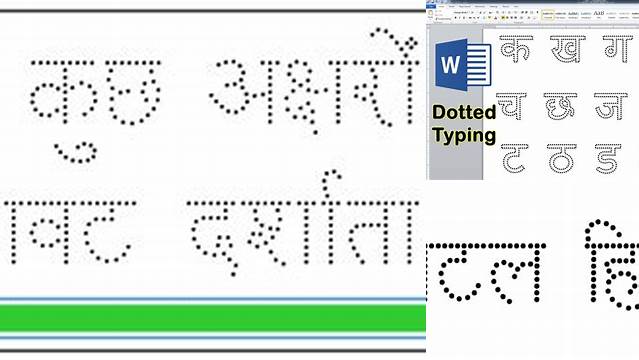
What Exactly Are Hindi Dotted Fonts and Why Use Them?
So, guys, you're looking for a way to help yourself or someone else learn to write Hindi, right? Well, let me tell you, Hindi dotted fonts are an absolute game-changer! Basically, these are special fonts designed with letters that are made up of dots. Think of it like a connect-the-dots puzzle, but for learning the beautiful Hindi script. Instead of a solid line, you get a series of tiny dots that form the shape of each Hindi character. This makes it super easy to follow the stroke order and the correct way to form each letter. When you download and print these fonts, you get practice sheets that are perfect for tracing. It's a fantastic visual aid, especially for beginners who are new to the complex shapes of Hindi. Whether you're a student, a teacher, a parent, or just someone fascinated by the Hindi language, these fonts offer a fun and effective way to get hands-on with writing. We're talking about making the learning process less intimidating and way more engaging. So, if you've been wondering what all the fuss is about, it's all about making learning to write Hindi accessible and enjoyable. You can find these readily available for free download, which is awesome because it means everyone can access this learning tool without any financial barriers. It’s all about making learning fun and effective!
The Magic of Tracing: Building Muscle Memory for Hindi
Alright, let's dive deeper into why tracing with these Hindi dotted fonts is so darn effective, guys. It's not just about looking at the letters; it's about physically engaging with them. When you trace over those dots, your brain and your hand work together in a really cool way. This process helps build what we call muscle memory. Imagine learning to ride a bike – at first, it’s wobbly, but the more you do it, the more your body remembers the movements without you even having to think about it. Tracing Hindi dotted fonts does the same thing for your writing. Your fingers learn the precise movements, the curves, and the straight lines needed to form each character correctly. This repetition is key to mastering any new skill, and writing is no different. It bypasses the initial struggle of figuring out where to start and which direction to go. The dots provide that guided path, ensuring you’re learning the correct stroke order, which is super important in many scripts, including Hindi. This method transforms a potentially frustrating task into a more intuitive and rewarding experience. You start to feel a sense of accomplishment with each letter you successfully trace. Plus, it's way less stressful than trying to write from scratch and getting it all wrong. So, grab a pen or a pencil, and get ready to trace your way to Hindi writing fluency!
Why Hindi Dotted Fonts are a Lifesaver for Beginners
For anyone just starting their Hindi learning journey, these free Hindi dotted fonts are nothing short of a lifesaver, seriously. The Hindi alphabet, with its Devanagari script, can look pretty intimidating at first glance. It’s got unique shapes and a different way of writing compared to many Western languages. Trying to copy these complex characters from a book or a screen without guidance can lead to a lot of frustration and incorrect letter formation. That's where dotted fonts come in. They provide a clear, step-by-step guide for every single letter. You don't have to guess the strokes; they're laid out for you in a way that's easy to follow. This takes a huge amount of pressure off beginners. Instead of worrying about making mistakes, they can focus on the process of moving their hand and forming the shapes. It builds confidence early on, which is crucial for motivation. When you can see progress and successfully write letters, you're more likely to stick with it. Think of it as having a personal handwriting tutor built right into your practice sheets. You're not just learning to recognize the letters; you're learning to write them properly from the get-go. This solid foundation in correct letter formation will serve you well as you progress to more advanced Hindi learning. It's the perfect starting point for anyone wanting to conquer the Hindi script without feeling overwhelmed.
Exploring Different Types of Hindi Dotted Fonts Available for Download
When you start searching for free Hindi dotted font downloads, you'll quickly realize there isn't just one 'type' of dotted font out there, guys. The variety is pretty cool and caters to different learning needs and preferences. Some fonts are designed with very clear, large dots that are easy for little fingers or those with less fine motor control to trace. These are often found in materials aimed at very young children. Then you have fonts with dots that are more closely spaced, mimicking a more solid line but still offering that tracing guidance. These are great for older learners or those who want to progress from tracing to writing. Some fonts even come with subtle directional arrows integrated into the dot patterns, showing you exactly which way to move your pen for each stroke. How cool is that? You might also find fonts that focus on specific aspects, like just the consonants or just the vowels, allowing for targeted practice. And let's not forget about the different styles – some fonts might be more traditional and formal, while others could be more playful and modern. The key is that they are all designed with the goal of making tracing easier and more effective. The availability of diverse options means you can find the perfect fit for your specific learning situation, whether you're teaching kindergarteners or brushing up on your own Hindi writing skills. So, take a moment to explore and see which style best suits your needs. You're bound to find something great!
Setting Up Your Practice Sheets: Tips for Printing and Usage
Okay, so you've successfully downloaded your awesome free Hindi dotted font, now it's time to make some killer practice sheets, guys! The way you set these up can make a huge difference in how effective they are. First off, when you create your document (using Word, Google Docs, etc.), make sure you select the dotted Hindi font you just installed. Type out the letters, words, or even short sentences you want to practice. Now, for printing: think about the size. For younger learners, larger letters with more space between them are usually best. This helps with developing fine motor control. Use a good quality paper – something a bit thicker than regular printer paper can hold up better to repeated tracing. You might even consider laminating the pages once printed. This way, you can use them over and over again with a dry-erase marker, which is super economical and eco-friendly! Another tip is to include a small, solid version of the letter next to the dotted one. This gives the learner a clear visual of the final, correctly formed character. You can also add lines for writing practice right next to the traced letter. And don't forget to mix it up! Include vowels, consonants, common word combinations, and even simple phrases. The more variety, the more engaging it will be. Basically, tailor the difficulty and content to the learner's current level. Think about making it fun, not just functional. These little tweaks can turn a simple printout into a powerful learning tool.
Tracing Hindi Alphabet (Varnamala) with Dotted Fonts
One of the most fundamental things you'll want to trace is the Hindi alphabet, or the Varnamala, guys. This is your absolute starting point for mastering the script. Using free Hindi dotted fonts to create Varnamala tracing sheets is incredibly effective. You can break it down into sections: first, the vowels (swar), then the consonants (vyanjan). For each letter, print it large enough to trace comfortably. When you're creating these sheets, consider adding a number for each stroke, guiding the learner through the sequence. For example, the first stroke gets a '1', the second a '2', and so on. This is especially helpful for the more complex consonants. You can also add a blank space next to each dotted letter for the learner to try writing it independently after tracing. The repetition of tracing each vowel and consonant multiple times helps solidify their shapes in memory. It’s like drilling, but in a much more enjoyable way. You can also create combined sheets featuring multiple letters, or focus on specific groups of consonants that share similar stroke patterns. The goal is to provide a structured yet forgiving environment for learners to get acquainted with every single character of the Hindi alphabet. Making these Varnamala sheets using downloaded dotted fonts is a fantastic DIY project for any aspiring Hindi writer.
Practicing Hindi Words and Sentences: Taking It to the Next Level
Once you've got a handle on the individual letters using those free Hindi dotted fonts, it's time to level up, guys! Moving on to tracing words and simple sentences is the natural progression. This is where the real magic of language learning starts to happen. When you download and use these fonts to create practice sheets with actual Hindi words, you start seeing the letters come together to form meaning. Start with simple, common words. Think names of everyday objects, family members, or basic greetings. Print these words out using the dotted font. Tracing these words helps learners understand how letters connect and flow into each other within a word. It reinforces the letter shapes in a more contextualized way. After words, graduate to short, simple sentences. Again, keep the vocabulary and grammar basic. Examples could be "यह एक किताब है" (Yah ek kitab hai - This is a book) or "मेरा नाम ___ है" (Mera naam ___ hai - My name is ___). Tracing full sentences helps learners grasp sentence structure and the rhythm of Hindi. It’s a fantastic way to improve reading fluency simultaneously, as they are physically writing the words they are reading. This stage is crucial for building confidence and demonstrating practical application of their writing skills. It bridges the gap between knowing letters and actually communicating in Hindi. So, don't stop at letters; trace your way to forming meaningful expressions!
Benefits for Kids: Making Hindi Learning Fun and Engaging
Let's talk about the kiddos, guys! For children learning Hindi, free Hindi dotted fonts are an absolute godsend. School can sometimes feel like a chore, but turning Hindi writing practice into a game using these fonts makes it incredibly fun and engaging. Kids naturally love activities like connect-the-dots or tracing. These fonts tap right into that enjoyment. By tracing the dotted Hindi letters, children are developing essential fine motor skills, which are crucial for everything from holding a pencil correctly to tying shoelaces. It’s not just about learning Hindi; it's about overall developmental progress. The visual guide provided by the dots reduces frustration and anxiety often associated with learning a new script. This means kids are more likely to approach Hindi with enthusiasm rather than dread. Think of the satisfaction they get when they successfully trace a letter or word correctly – it builds their confidence sky-high! Teachers and parents can create colorful and interactive worksheets, perhaps adding little pictures next to the words they trace. This multi-sensory approach really helps cement the learning. So, if you want to make Hindi learning an adventure rather than a homework assignment for the little ones, incorporating these downloadable dotted fonts is a brilliant strategy.
Final Thoughts: Embracing the Joy of Hindi Writing
So there you have it, guys! We've explored the wonderful world of free Hindi dotted fonts and how they can revolutionize the way you or someone you know learns to write Hindi. From building essential muscle memory and boosting confidence for beginners, to providing a practical approach for adults and a fun, engaging method for kids, these downloadable fonts are incredibly versatile. They serve as a fantastic stepping stone towards independent writing and can even offer a gentle introduction to calligraphy. Remember, learning a new script is a journey, and having the right tools makes all the difference. Embracing tracing with dotted fonts is a simple yet powerful strategy to make that journey smoother, more effective, and ultimately, more joyful. So go ahead, download some fonts, create your practice sheets, and start tracing your way to beautiful Hindi handwriting. Happy learning!